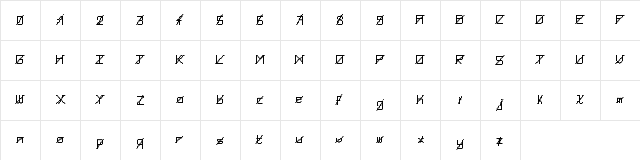
WLM Pixel Party White Mistake Regular
Design Context for WLM Pixel Party White Mistake Typeface
WLM Pixel Party White Mistake is rooted in pixel-grid construction, making it a natural fit for game UI, retro computing aesthetics, and digital nostalgia projects.
Well-suited to indie game interfaces, retro computing aesthetics, and pixel art-adjacent design work.
Pro Tip: Use WLM Pixel Party White Mistake at sizes that align with its pixel grid for the sharpest rendering — scaling to non-integer multiples can introduce unwanted blur.